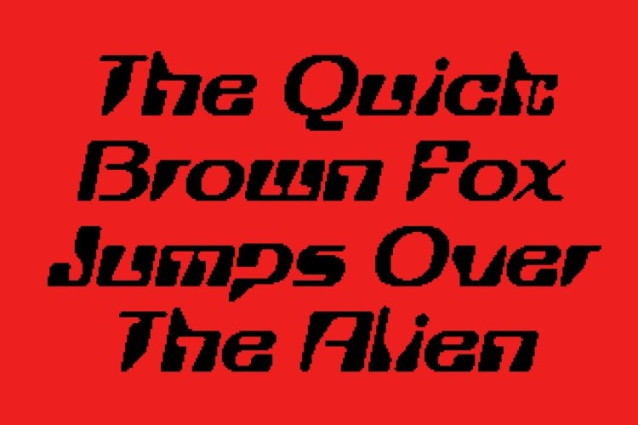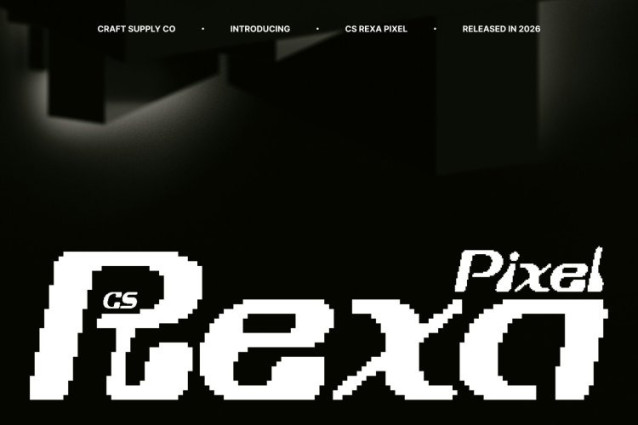
CS Rexa Pixel Font
CS Rexa Pixel Font This is a futuristic display font inspired by the bold optimism of Y2K aesthetics. Built with clean structure and pixel-influenced forms, it blends early-digital nostalgia with modern precision. The result is a typeface that feels playful yet forward-looking perfect for designs that want to feel experimental, energetic, and stylish.
Rounded Geometry with Tech-Driven Flow
Subtle rounded details soften the geometric foundation of this font, creating a smooth visual rhythm without losing its technological edge. These curves enhance readability and add personality, balancing sharp digital clarity with expressive movement. The font feels sleek, dynamic, and unmistakably modern.
Ideal for Games, Music, and Digital Culture
Designed for contemporary creative industries, this font excels in games, music visuals, digital interfaces, posters, and motion graphics. Its futuristic tone paired with Y2K influence makes it especially suited for sci-fi themes, electronic music branding, cyber visuals, and trend-driven digital media.
A Typeface Bridging Nostalgia and the Future
This is more than a display font it’s a visual bridge between eras. By combining pixel-inspired structure, modern tech aesthetics, and Y2K-style curves, it delivers a bold typographic voice that feels nostalgic, innovative, and confidently expressive. Use this font when your design needs futuristic clarity with retro-digital soul.